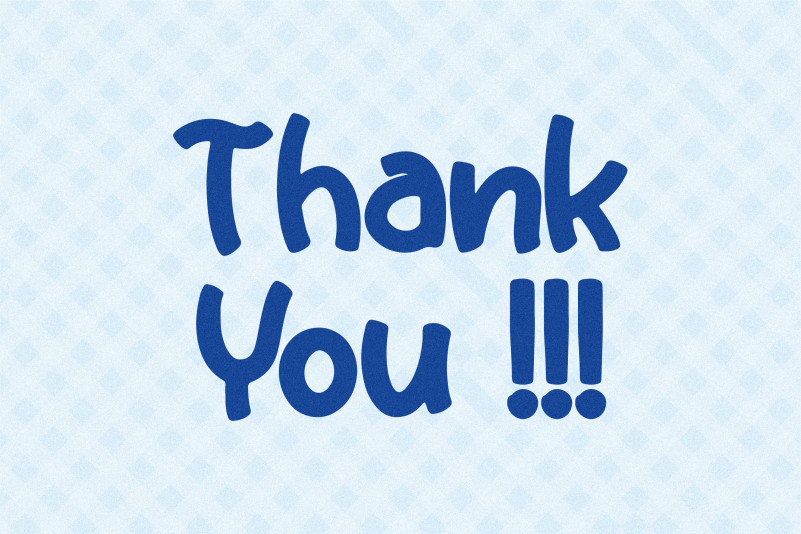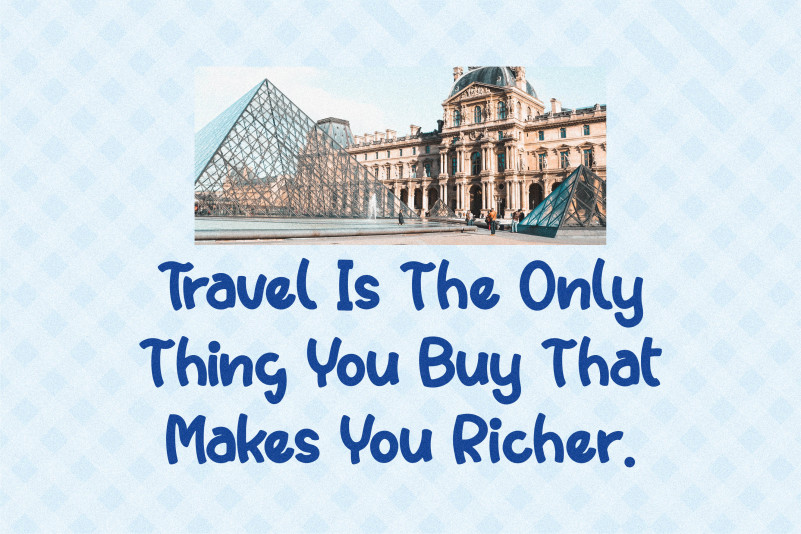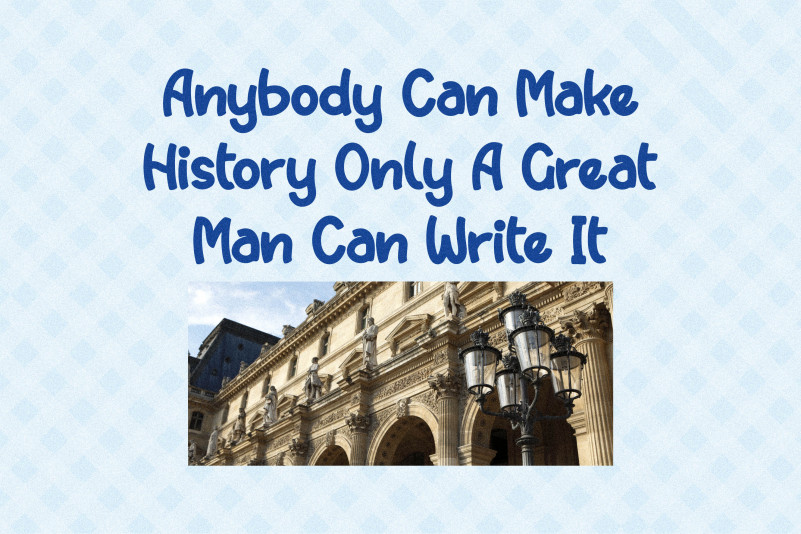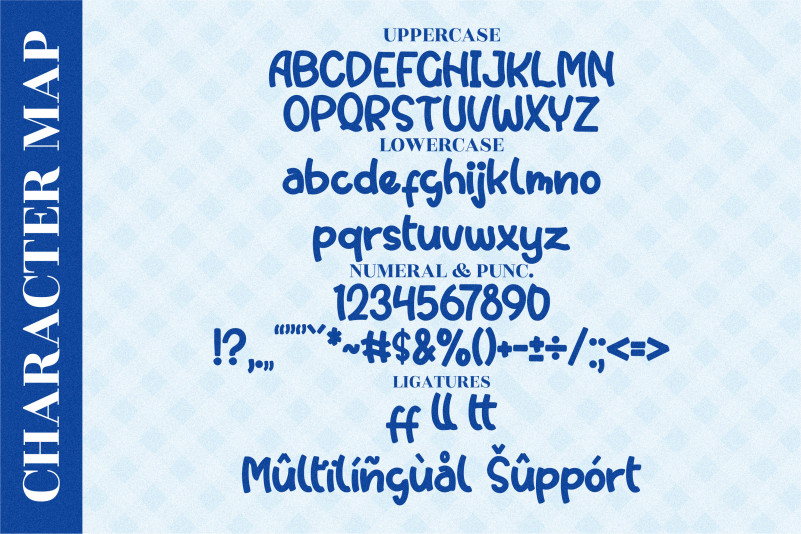
Jacky Boys Font
Jacky Boys Display Font
This is a cool, incredibly cute and bubbly display font. Add it to each of your party invitation, gathering or pretty much any design that requires a touch of youth and joy.